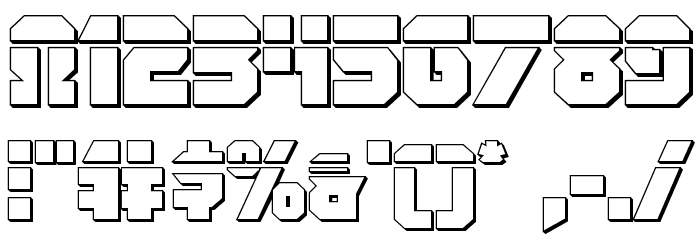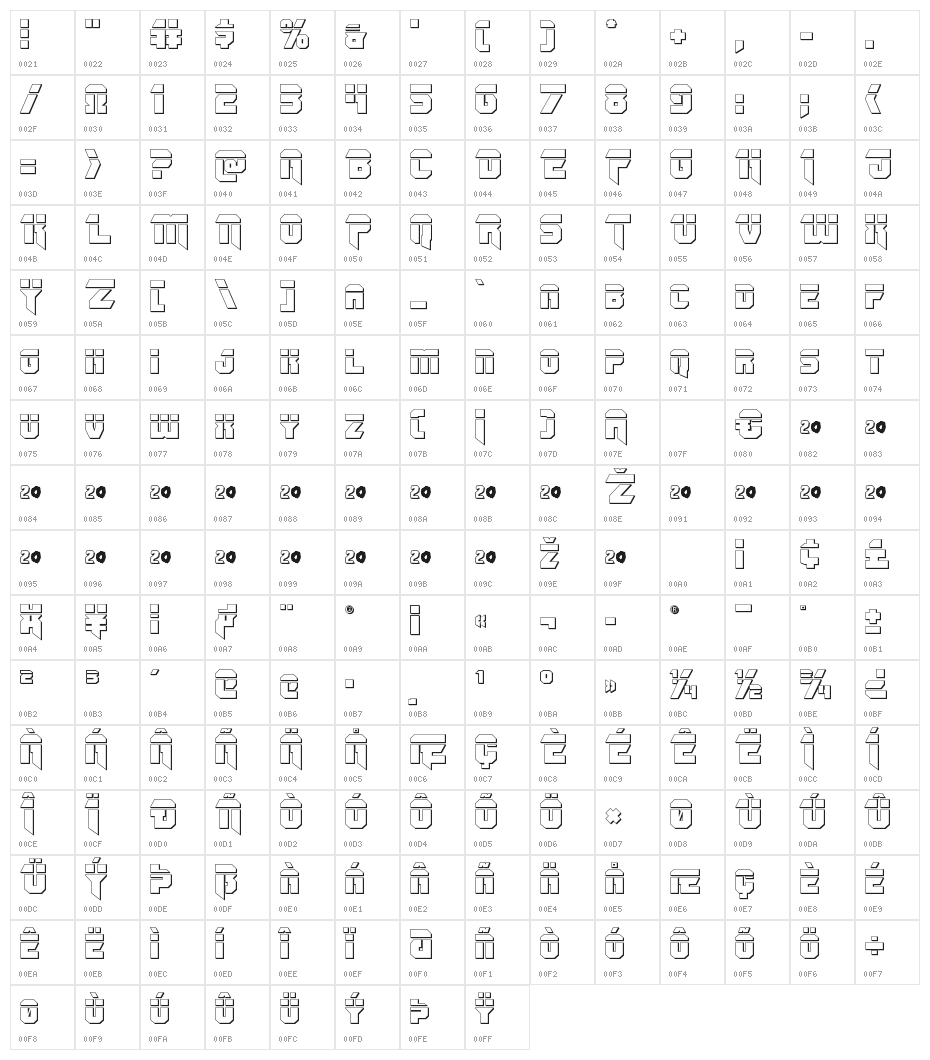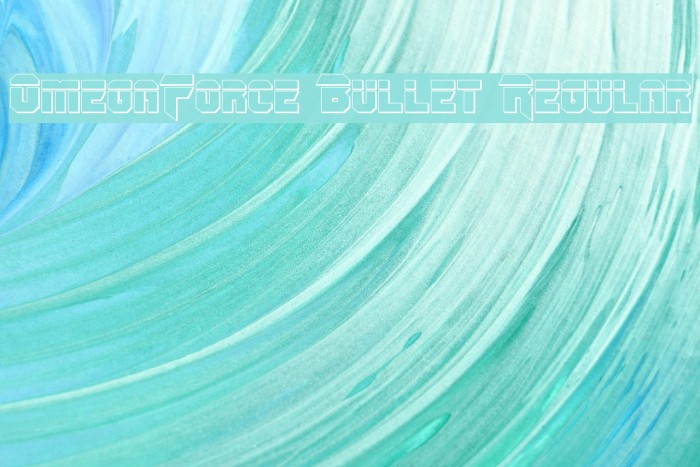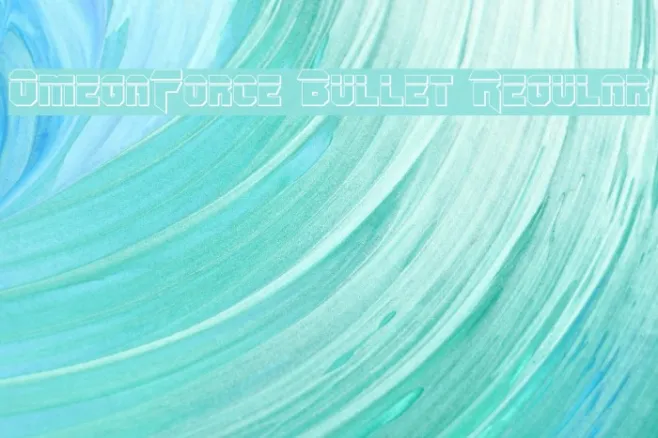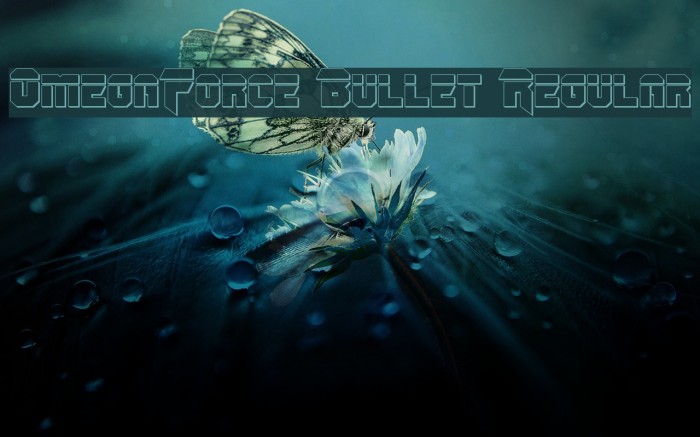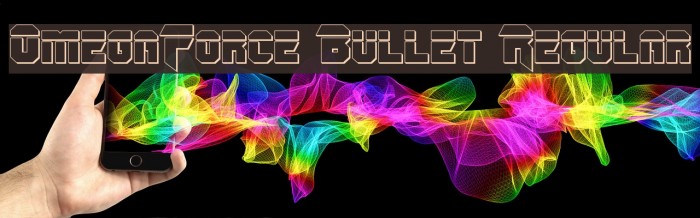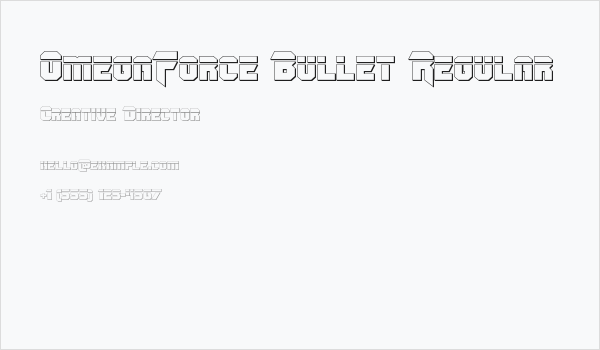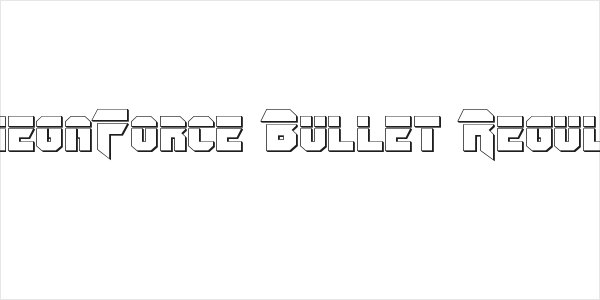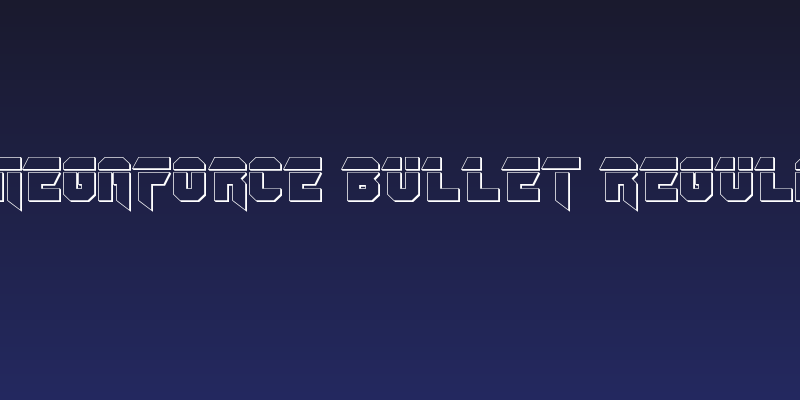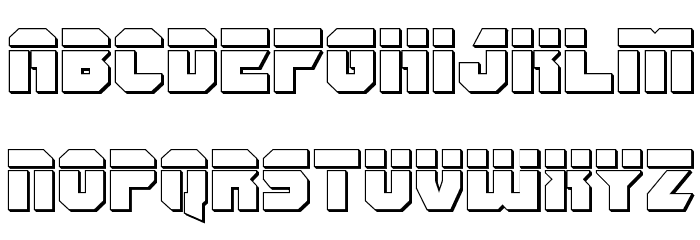
OmegaForce Bullet Regular Font
OmegaForce Bullet Regular Description
This font features a bold, geometric design with a futuristic and industrial feel. The characters are constructed with thick, angular lines and sharp edges, creating a sense of strength and modernity. The uppercase and lowercase letters maintain a consistent style, emphasizing uniformity and precision. Numbers and special characters are designed with the same robust structure, ensuring a cohesive look across all elements. The font's outline style adds a unique dimension, making it stand out in various design contexts.
| Overall Style | Futuristic, Industrial |